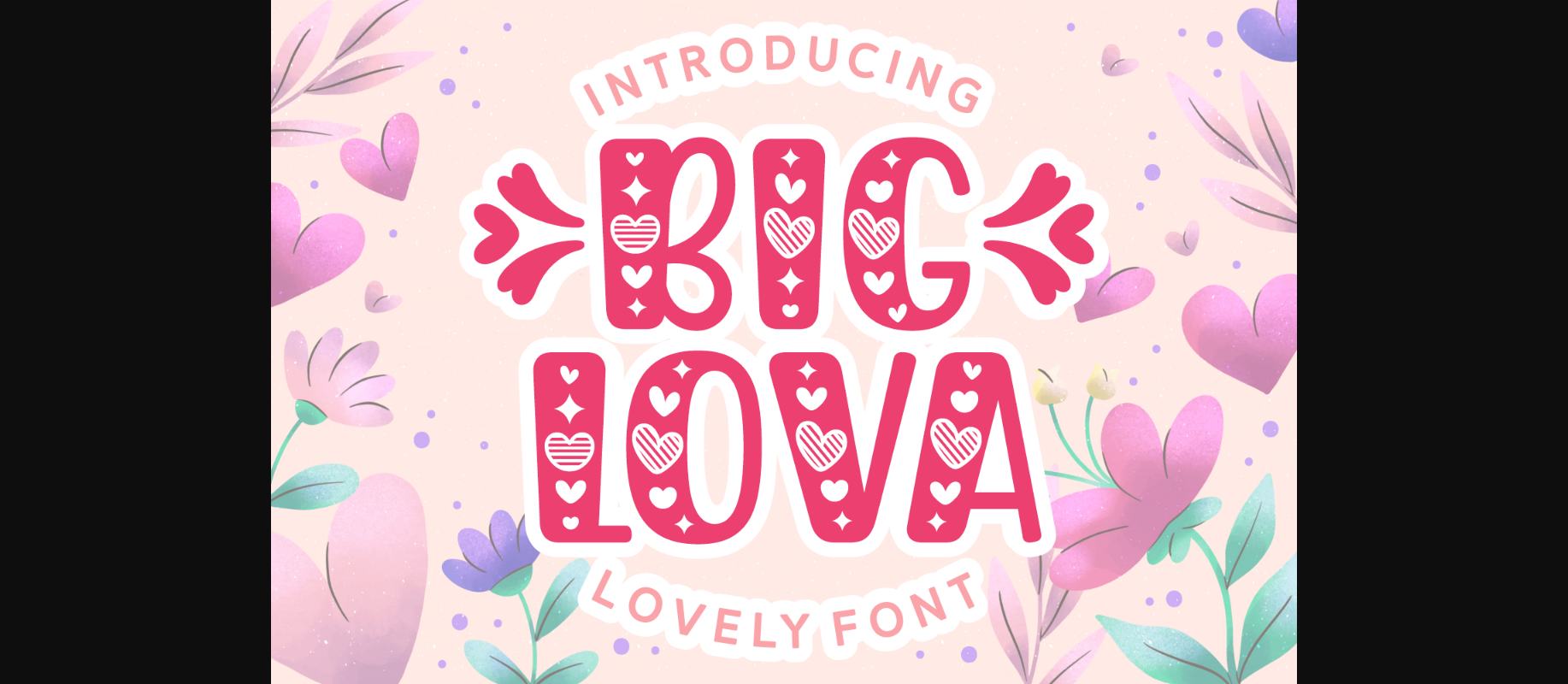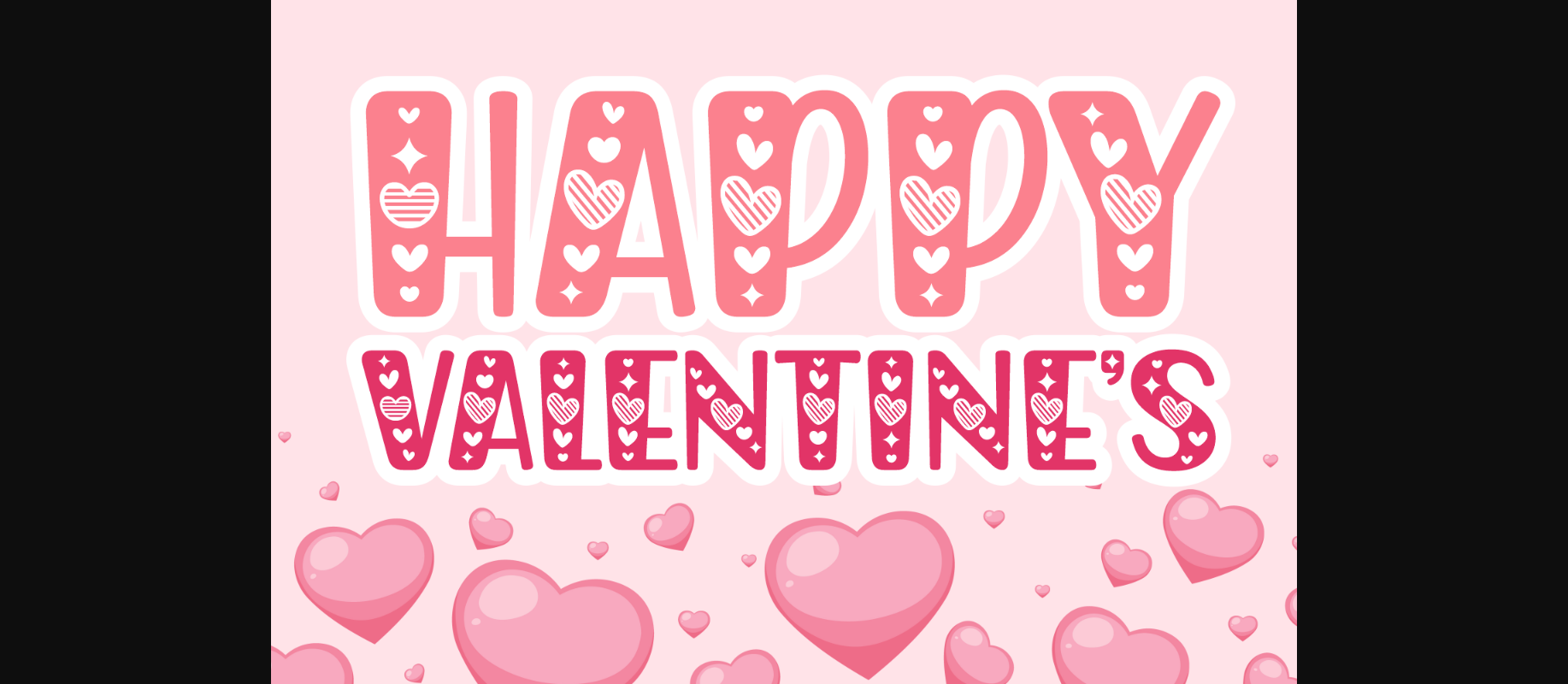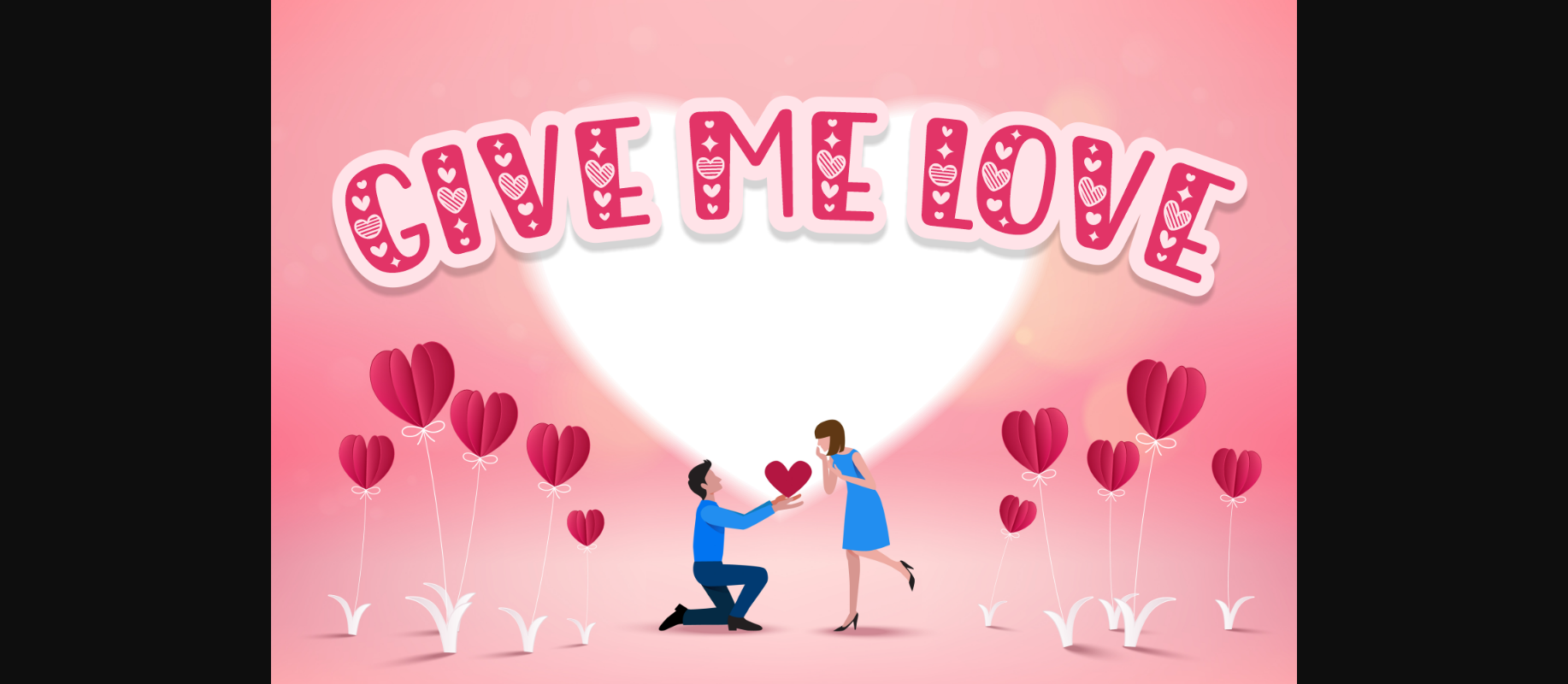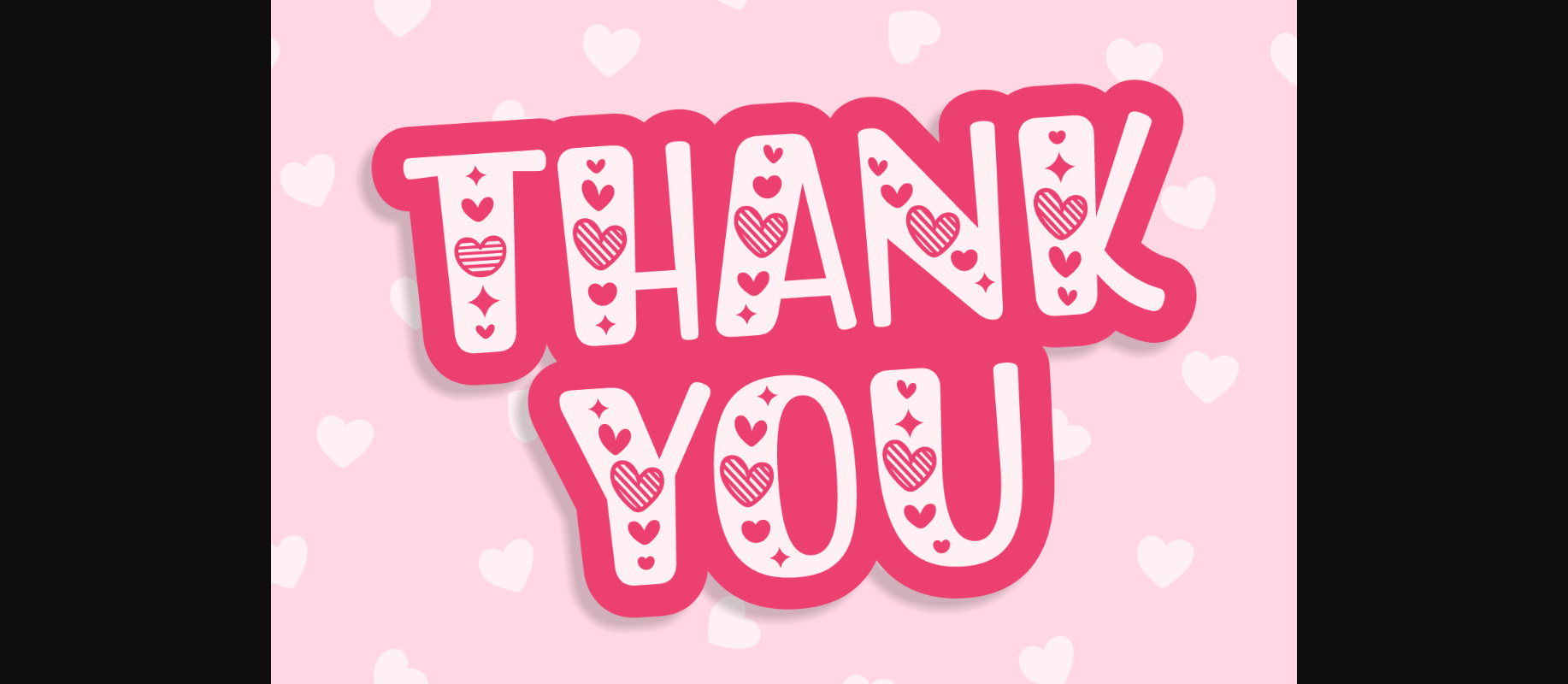
Big Lova Font
About Big Lova Font
Big Lova is a romantic and chic decorative font. Fall for its ravishing style and use it to create gorgeous wedding invitations, beautiful stationary art, eye-catching social media posts, and much more!